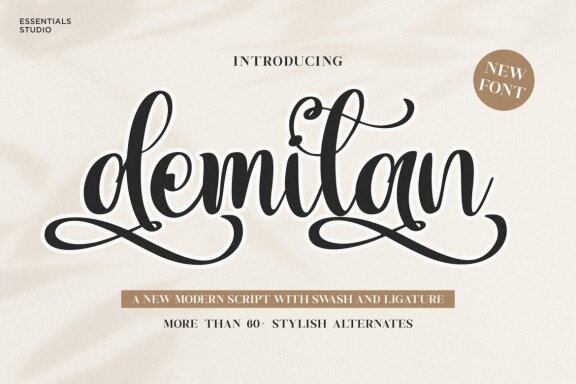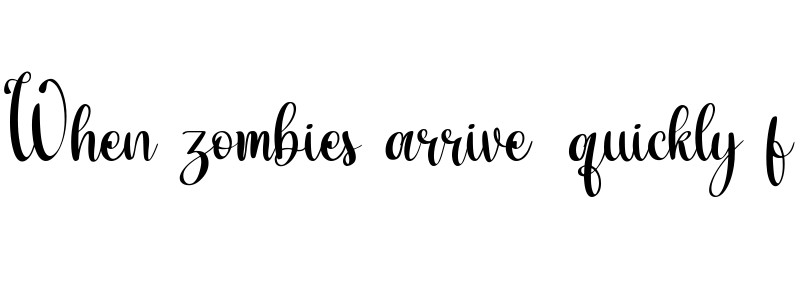
Demilan
Introducing by Essentials Studio
Proudly Present, demilan
demilan Is a New Modern Script With Swash and Ligature More Than 60+ Stylish Alternate
demilan is perfect for product packaging, branding project, megazine, social media, wedding, or just used to express words above the background.